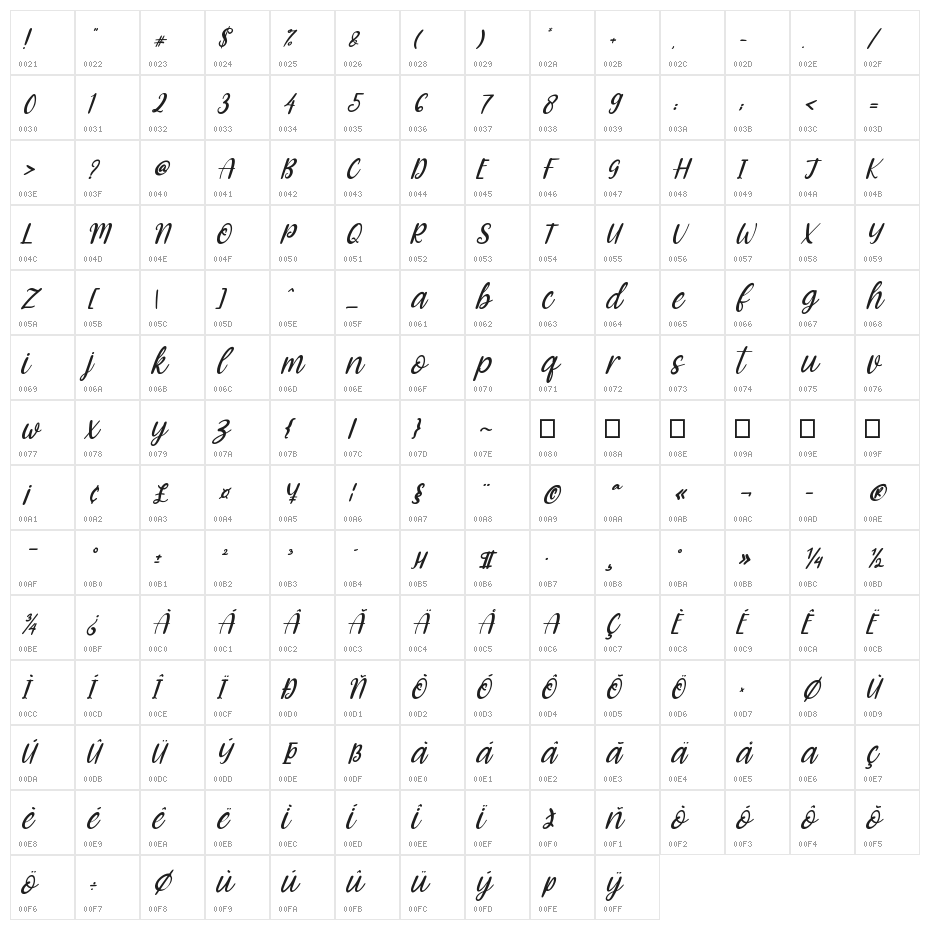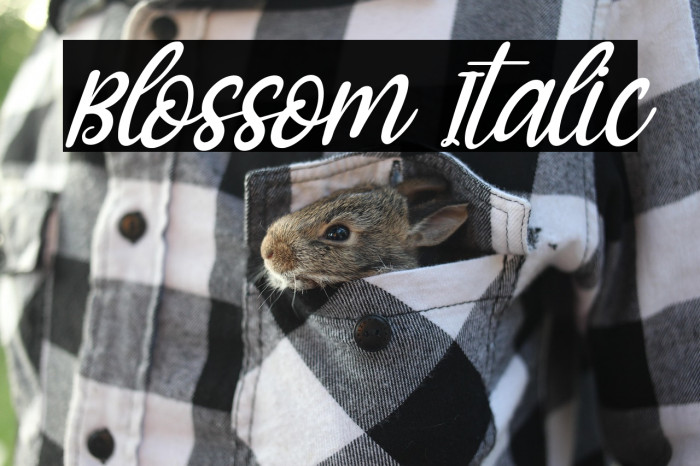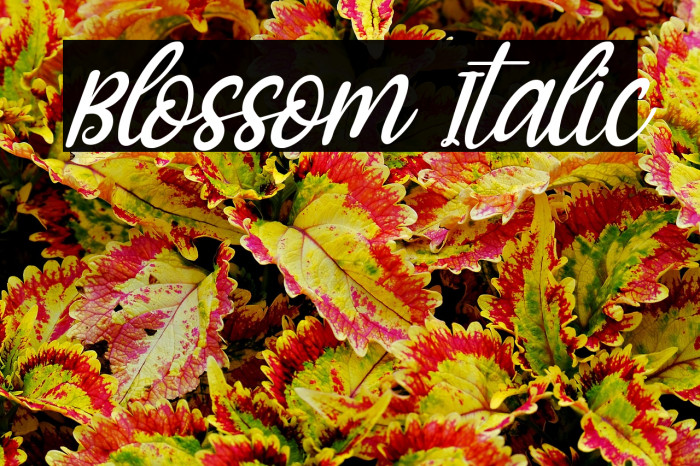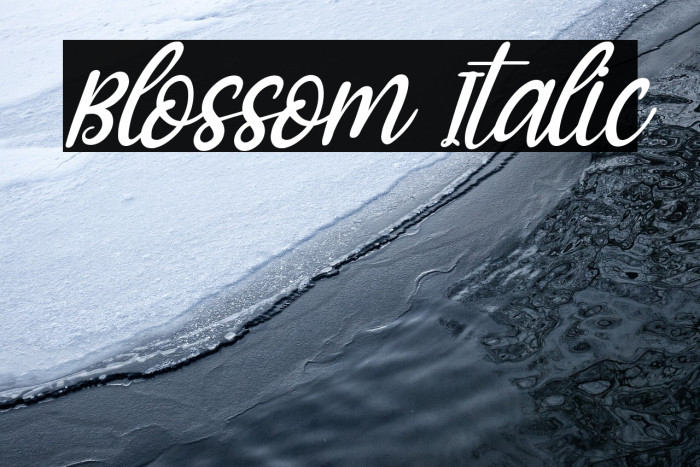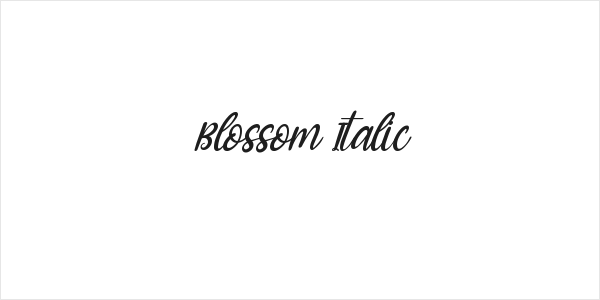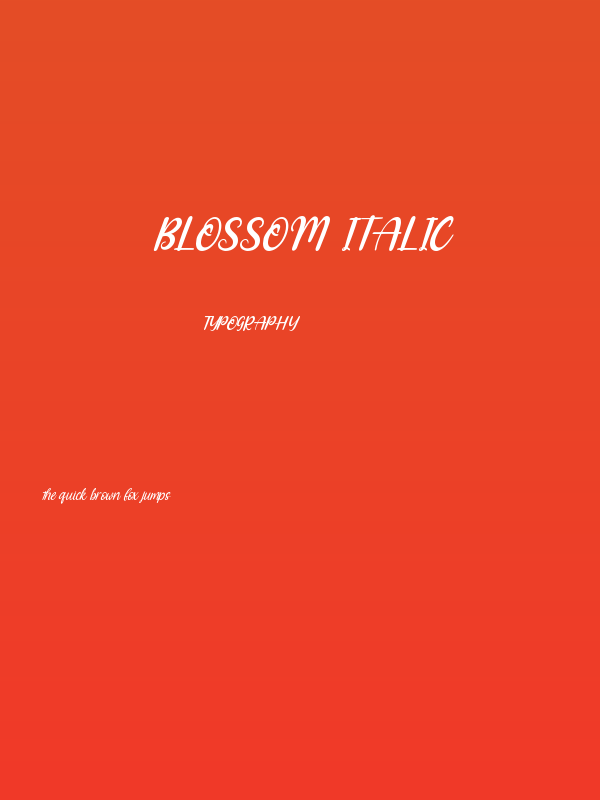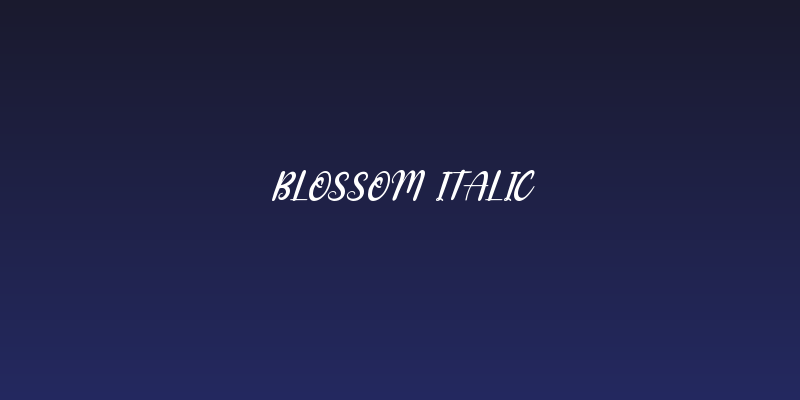
Blossom Italic Font
Blossom Italic Description
This font features a flowing, cursive style with a distinct italic slant, giving it an elegant and dynamic appearance. The characters are interconnected, creating a seamless flow that mimics natural handwriting. The uppercase letters are bold and prominent, while the lowercase letters maintain a consistent style with smooth curves and loops. The numerals are clear and legible, matching the overall aesthetic. Special characters are designed with the same fluidity, ensuring a cohesive look across all elements. This font exudes a sense of sophistication and creativity, making it ideal for projects that require a personal touch.